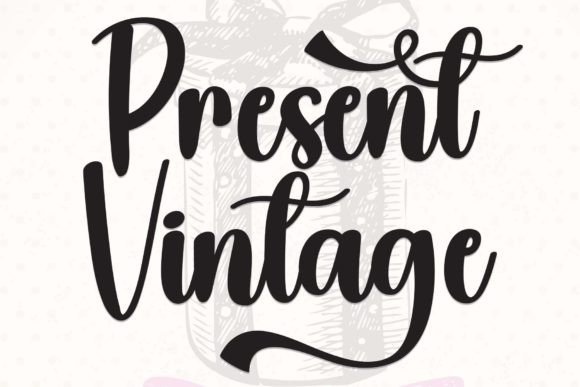
Introducing Present Vintage Font - the Best Font Style for Brochure that will elevate your design game and captivate your audience. Created by the talented designer Creativewhitee, this script font family is the ultimate choice for anyone seeking a unique and extraordinary experience.
With its latest style letters, Present Vintage Font is not just your ordinary font. It is a versatile tool that will transform your projects into stunning works of art. Whether you're working on wall displays, wedding invitations, social media post logos, advertisements, product packaging, or labels, this font will add a touch of elegance and sophistication.
Imagine the impact this font can make on your photography, watermarks, invitations, and stationery. It effortlessly adds a taste of handwriting that will leave a lasting impression on your audience. No matter what project you have in mind, Present Vintage Font is the perfect companion.
One of the standout features of Present Vintage Font is its encoded PUA character. This means you can access all its unique and eye-catching elements without the need for additional design software. It's all right at your fingertips, ready to unleash your creativity.
In a world where first impressions matter, Present Vintage Font stands out from the crowd. Its elegant and captivating style will make your designs unforgettable, leaving a lasting impact on your audience. So why settle for ordinary fonts when you can have the best?
Experience the magic of Present Vintage Font today and elevate your design projects to new heights. Join the countless satisfied users who have already embraced this font as their go-to choice. Let your creativity soar and create masterpieces that will leave everyone in awe.